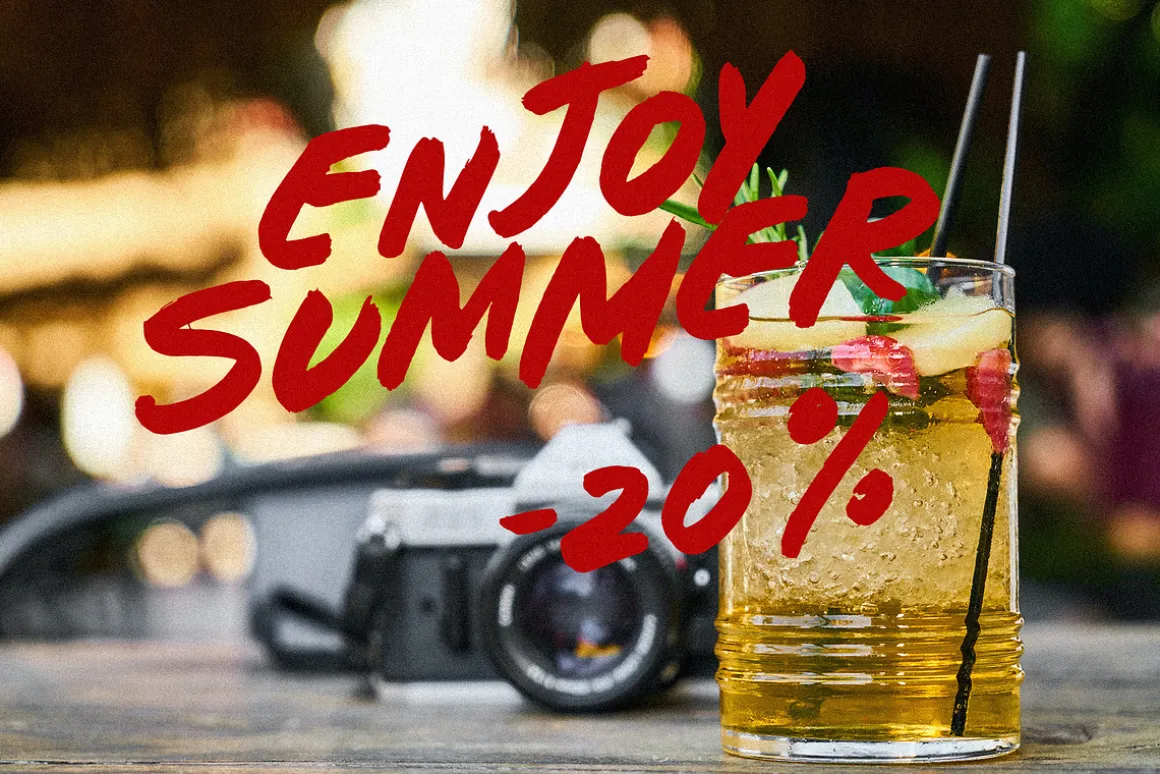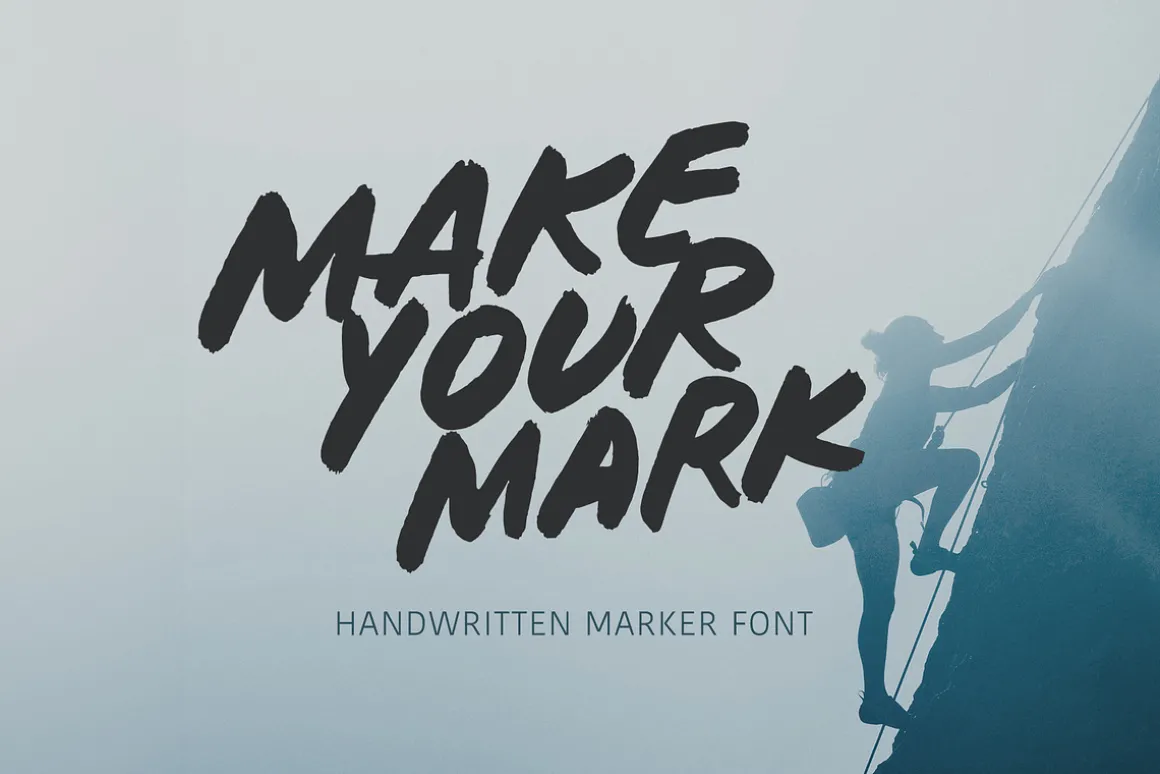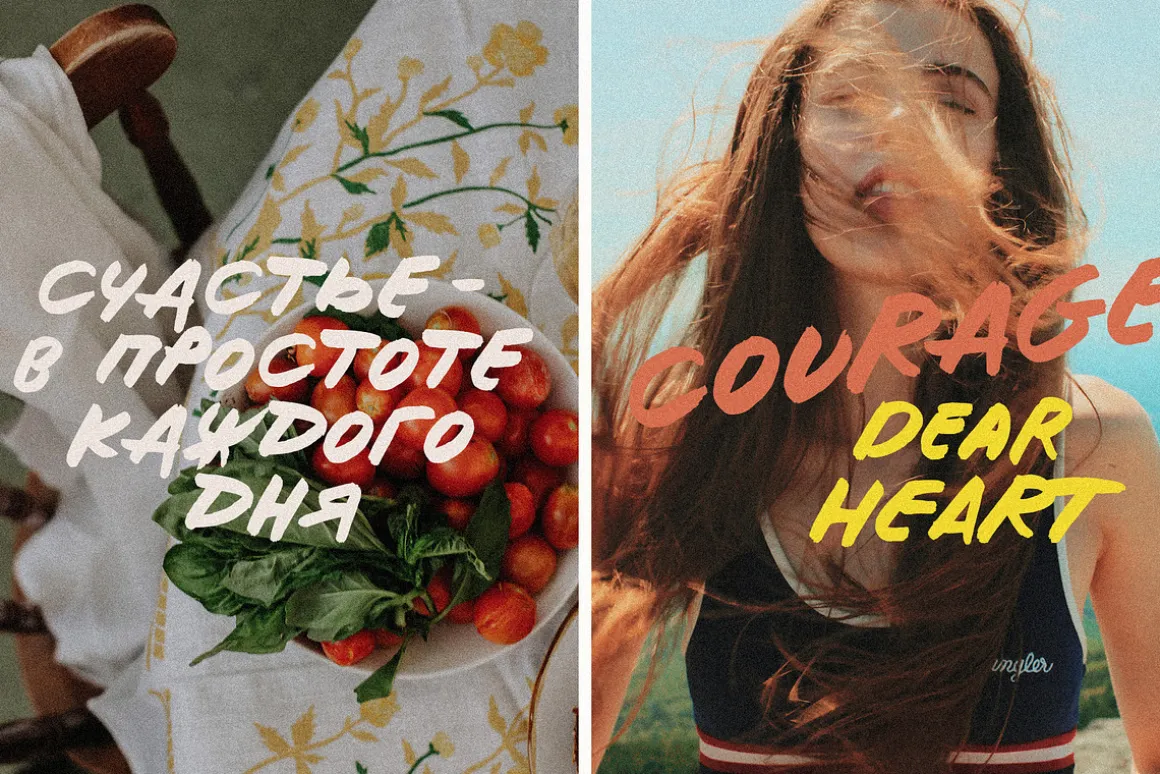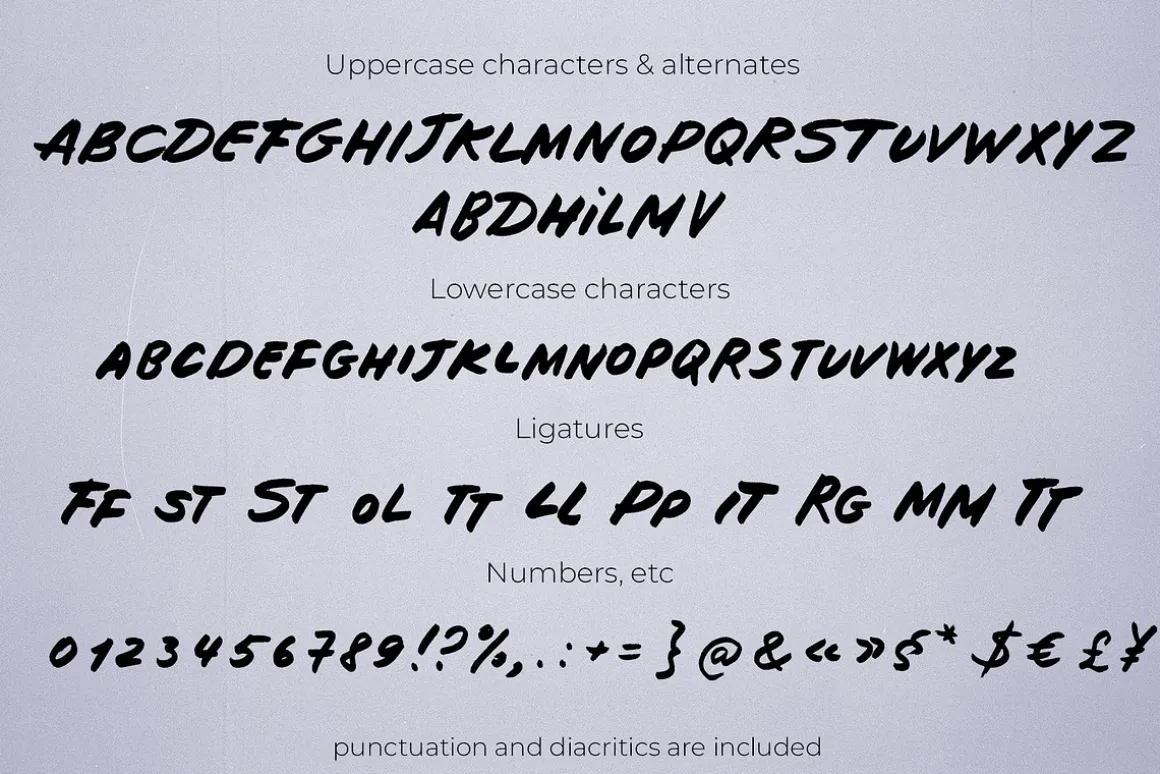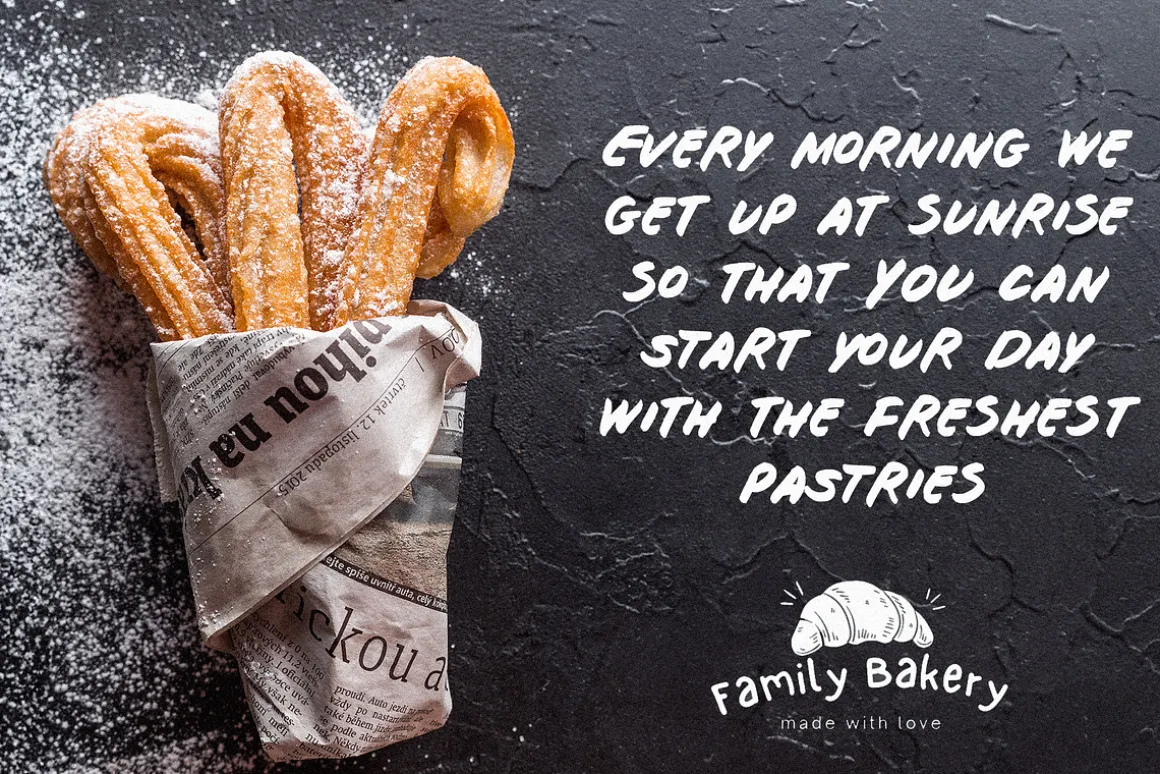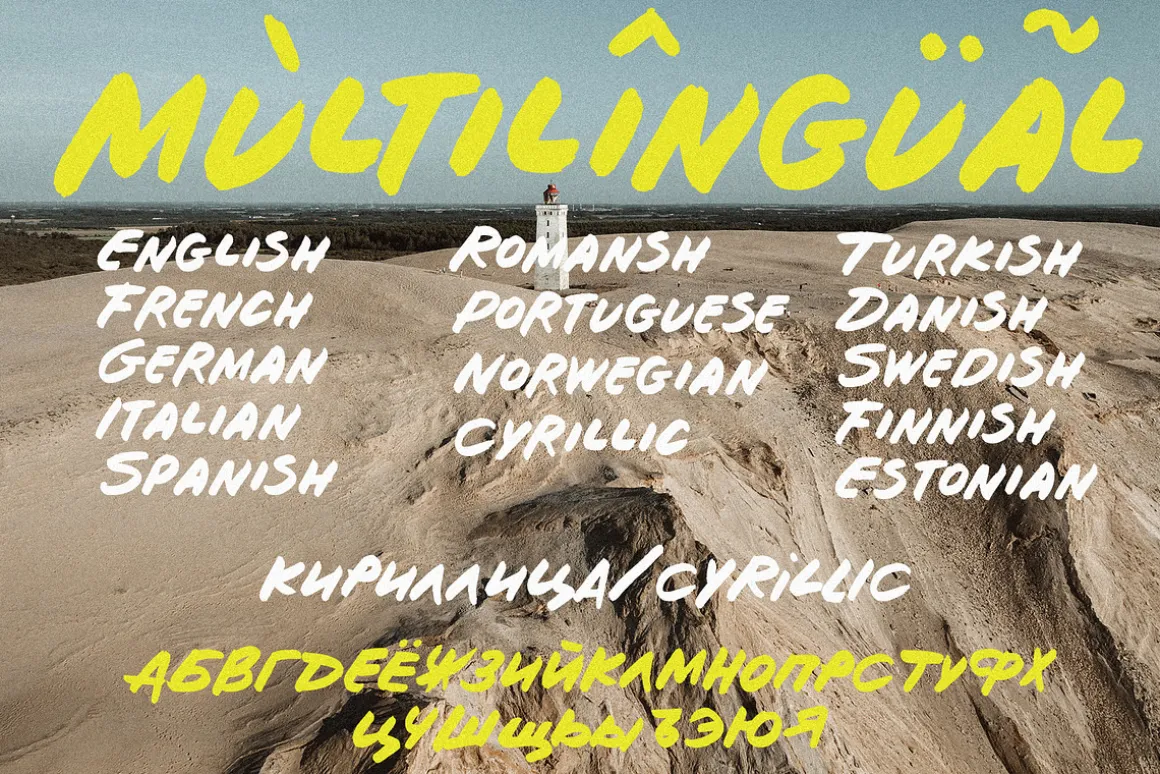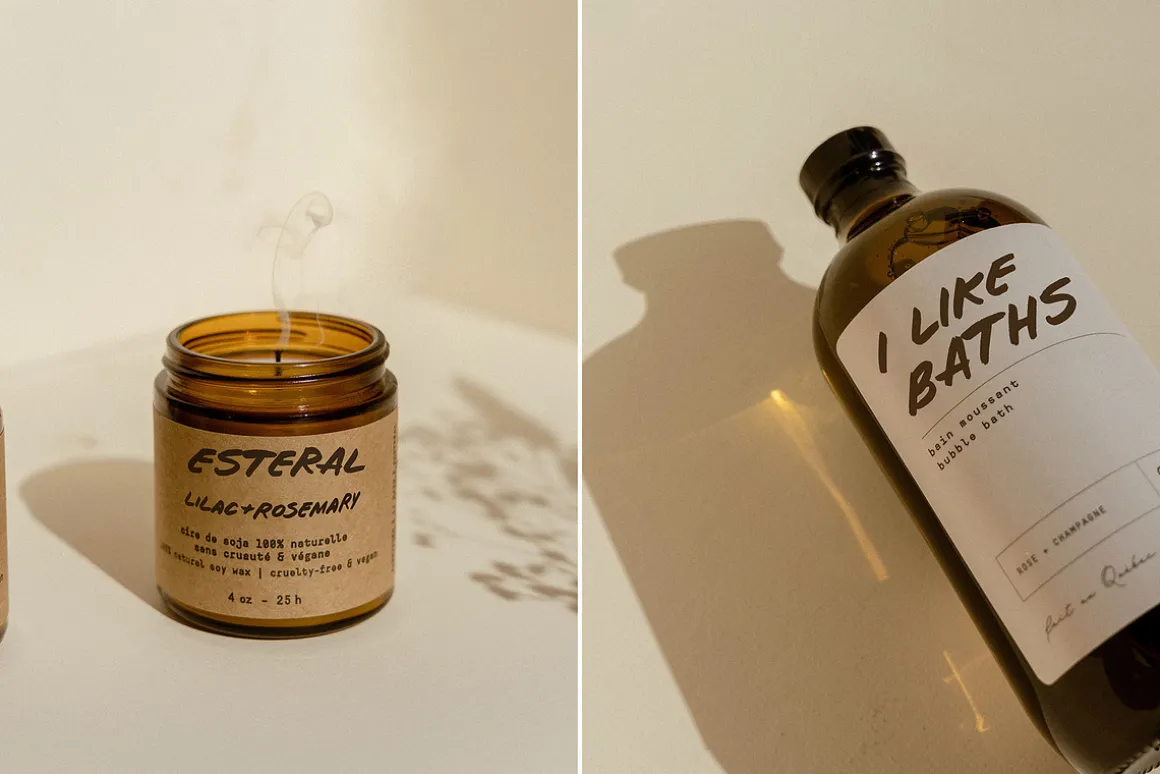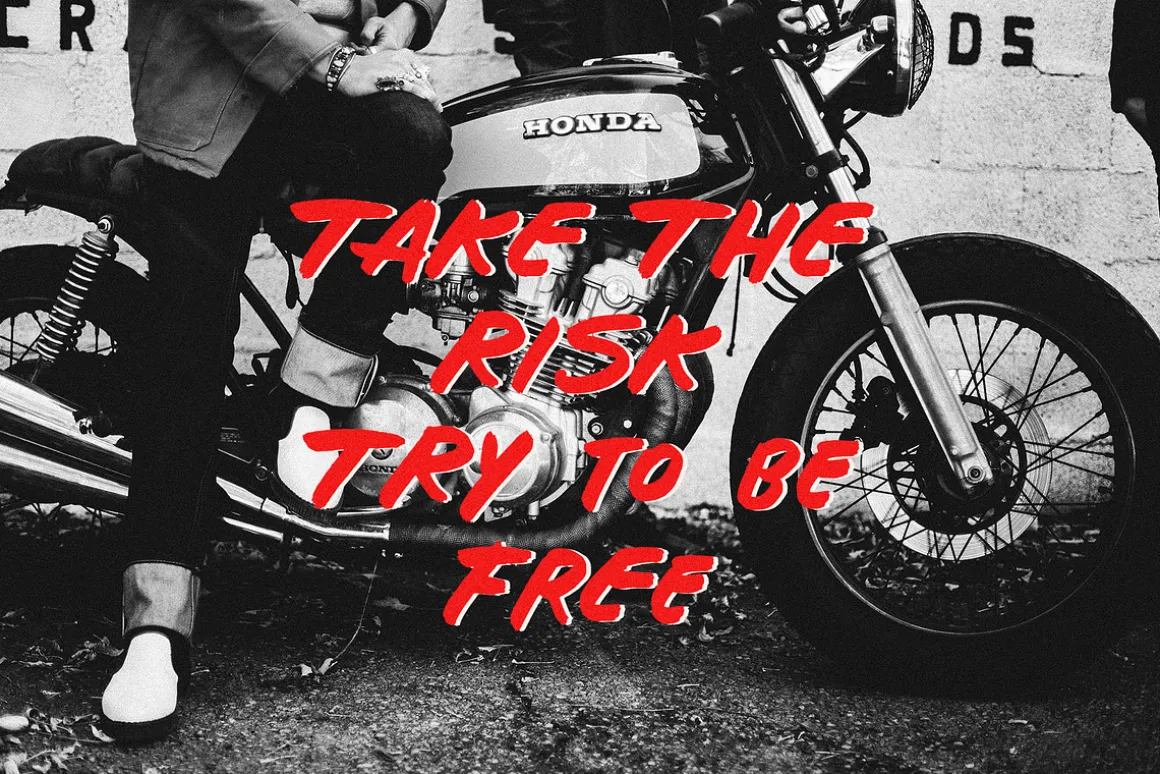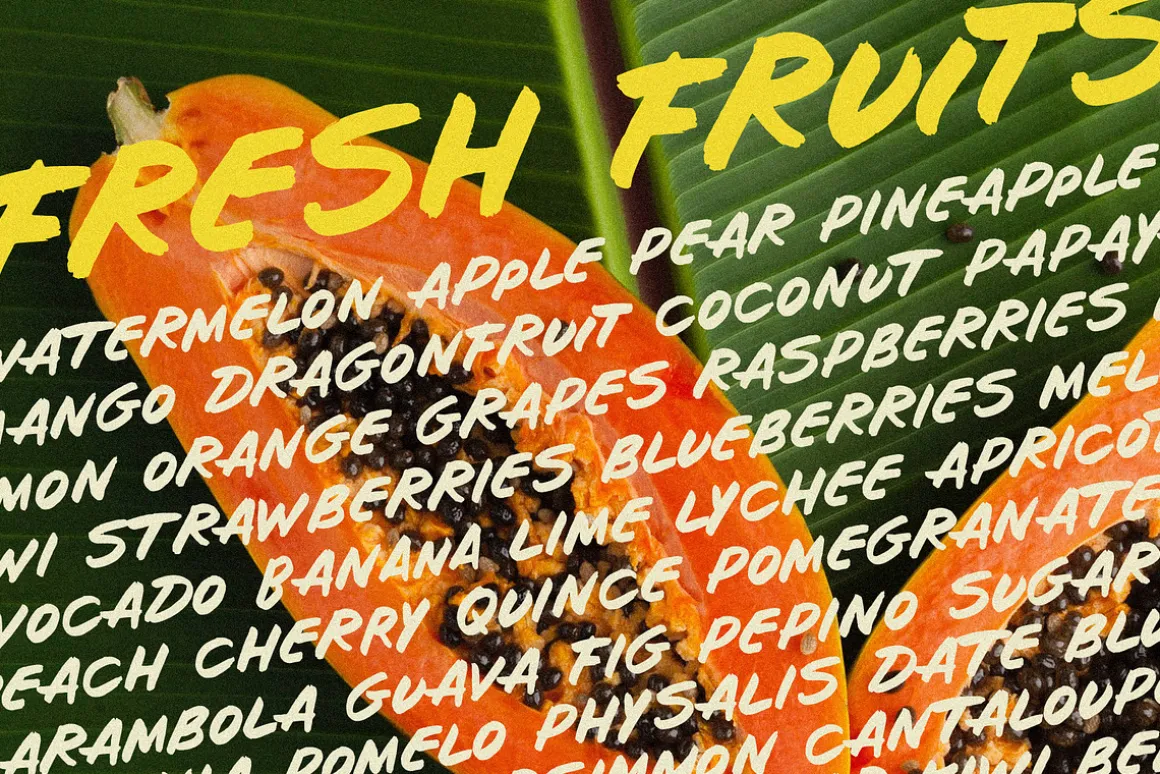
This is MAKE YOUR MARK—my new handwritten font, written with a real marker brush. This font is textural and very authentic, contains a large number of ligatures and alternative characters. Supports many languages, including Cyrillic. The font is suitable for design for various things, including logo design, packaging, advertising, product design, websites, blogs and much more.
MAKE YOUR MARK has extensive language support, it includes English, French, German, Italian, Spanish, Portuguese, Danish, Norwegian, Swedish, Finnish, Estonian, Romansh, Turkish, Cyrillic. Need to know if your language is supported? Type any words in the text box below and see if all characters you need are there.